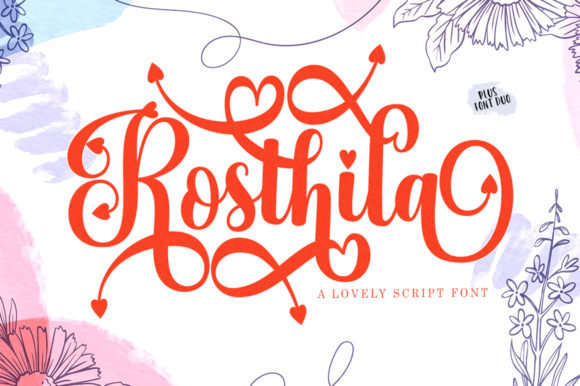
Behold, Rosthila Font – an Exquisite Symphony of Style and Grace!
Immerse yourself in the world of Rosthila Font, a captivating script font that exudes elegance and sophistication. Inspired by the enduring beauty of classic calligraphy, Rosthila captures the essence of timeless artistry, transcending the boundaries of ordinary fonts. With its graceful curves and impeccable form, this font elevates your designs to new heights, captivating audiences with its mesmerizing aesthetics.
Step into a realm of creativity where your projects come alive, infused with the allure of Rosthila's enchanting characters. Whether you're crafting logos, branding materials, invitations, or any visual masterpiece, this font becomes your trusted companion, adding a touch of refinement and distinction. Its carefully crafted glyphs and swashes, easily accessible through PUA encoding, provide endless possibilities for customization and expression.
Rosthila's versatility knows no bounds, adapting seamlessly to a myriad of design concepts. Its balanced and varied strokes, neither too thin nor too thick, lend themselves beautifully to various applications, from elegant logos to whimsical invitations. Experience the joy of creating designs that resonate with your audience, leaving a lasting impression that speaks volumes about your attention to detail and impeccable taste.
Embrace the power of Rosthila Font and watch your creative visions transform into stunning realities. Its timeless appeal ensures that your designs will stand the test of time, captivating hearts and minds with its unwavering beauty. As you embark on your creative journey, let Rosthila be your guiding light, illuminating your path to design excellence.